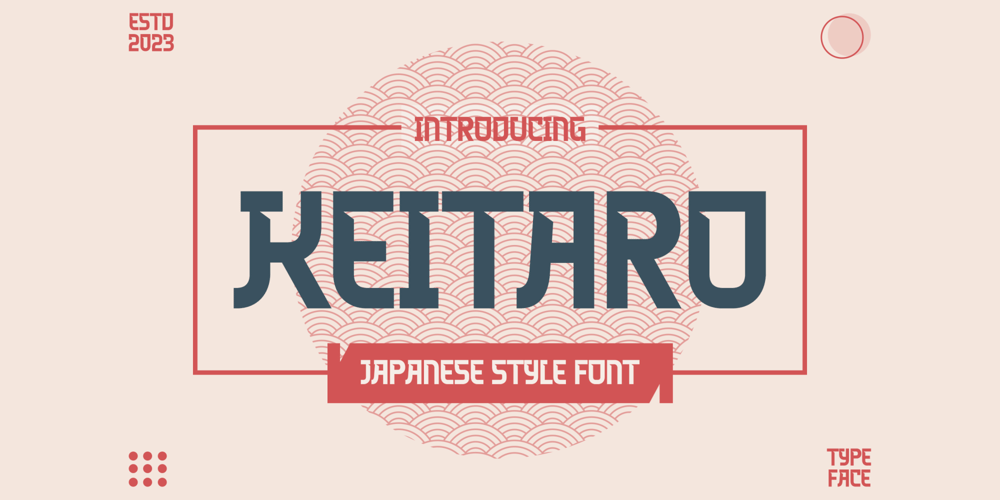
Keitaro Font Family was designed by Firman Maulana and published by Agny Hasya Studio. Keitaro contains 2 styles and family package options. Keitaro is a Japanese Font Style Featured with Uppercase and Lowercase, Numerals, Punctuation, and OpenType Features. Perfect for your design projects like logos, branding, advertising, product designs, stationery, magazine designs, book/cover title designs, photography, art quotes, Special events, labels, product packaging, and more.